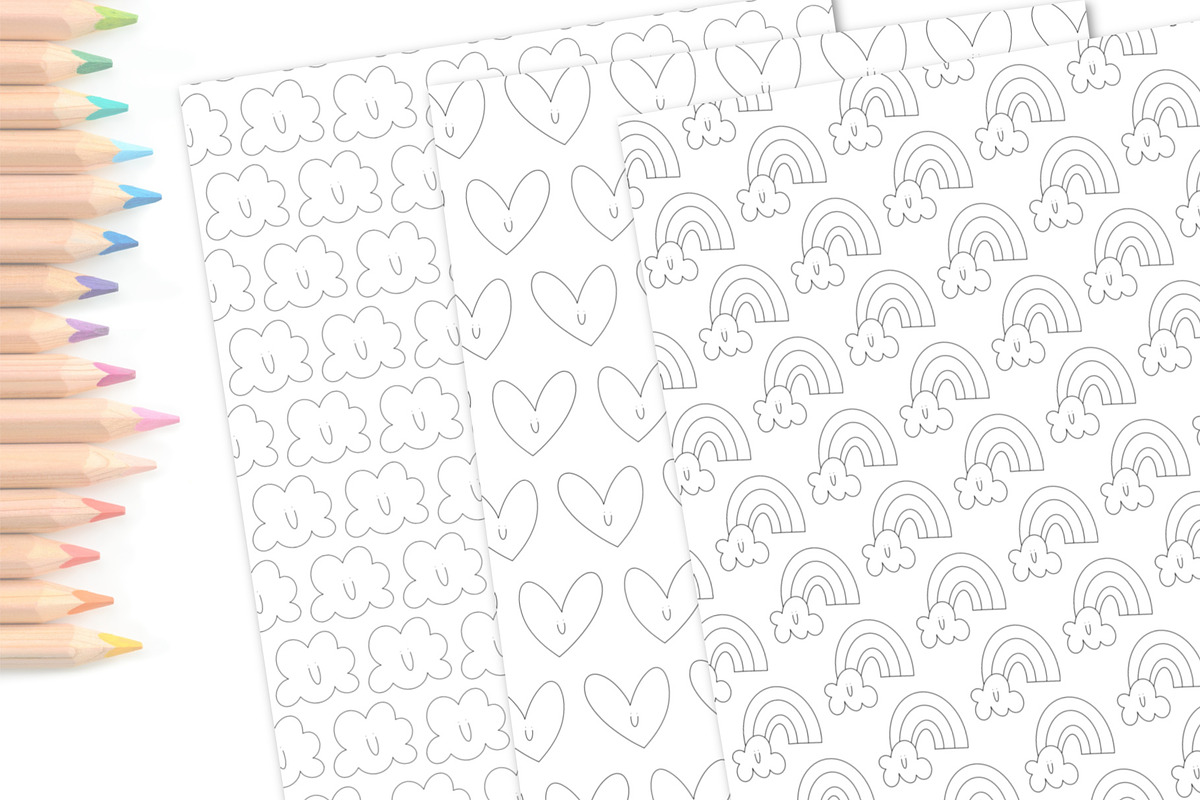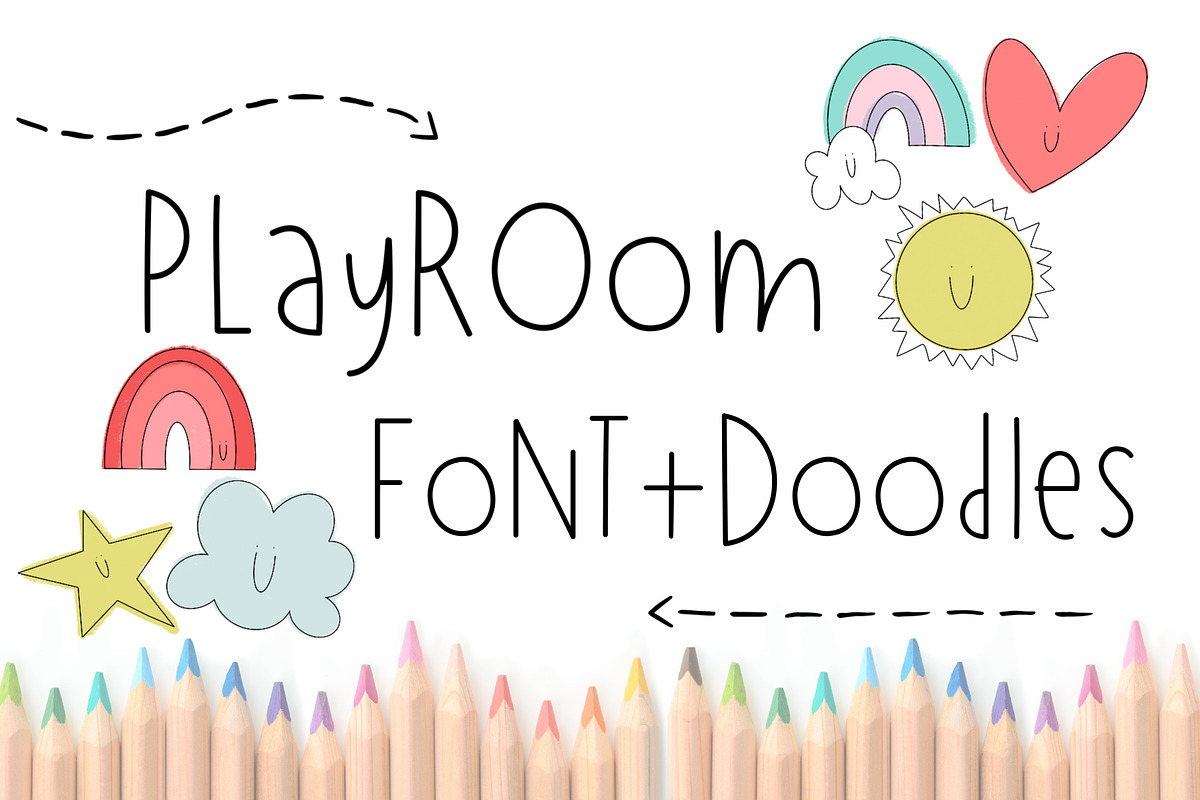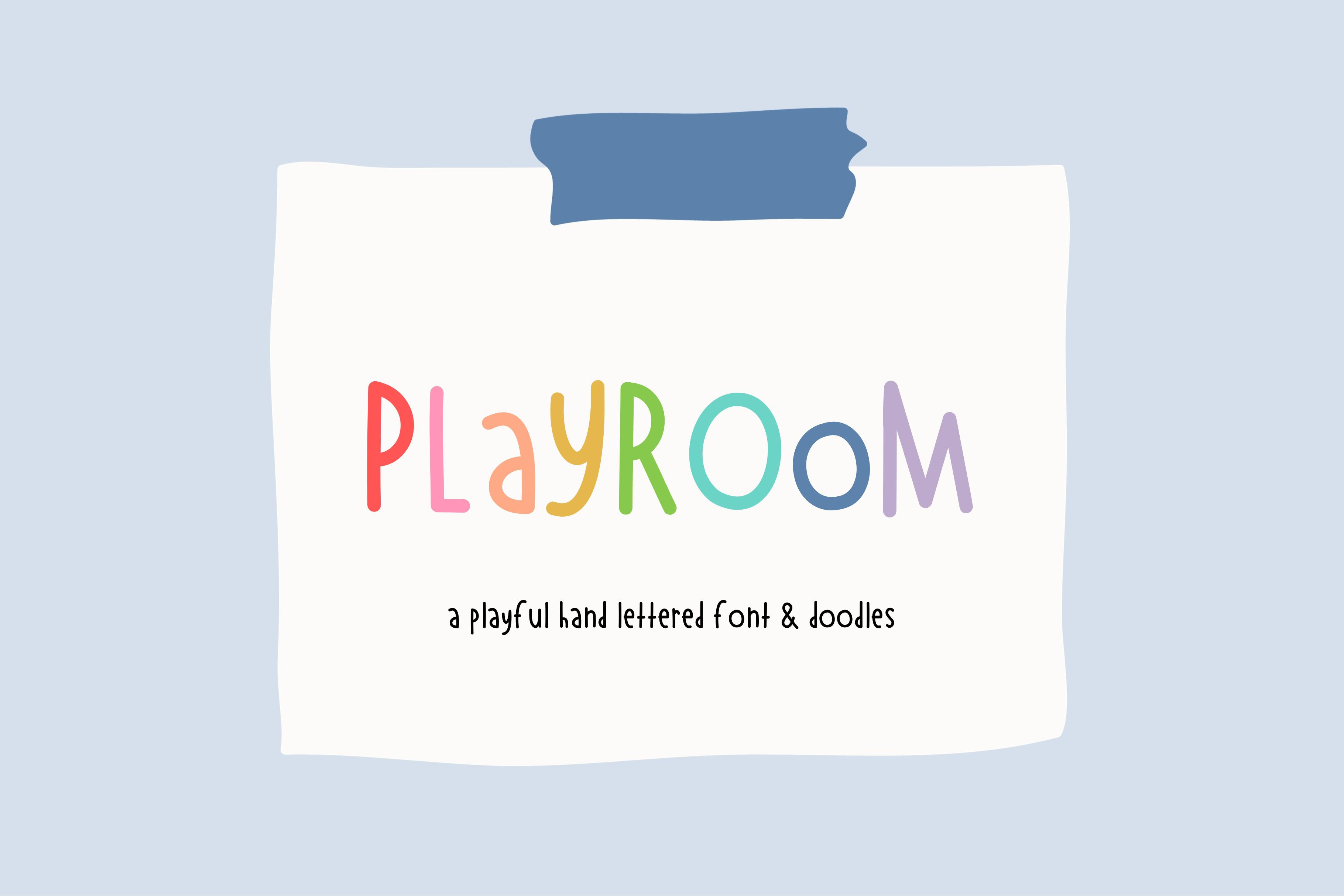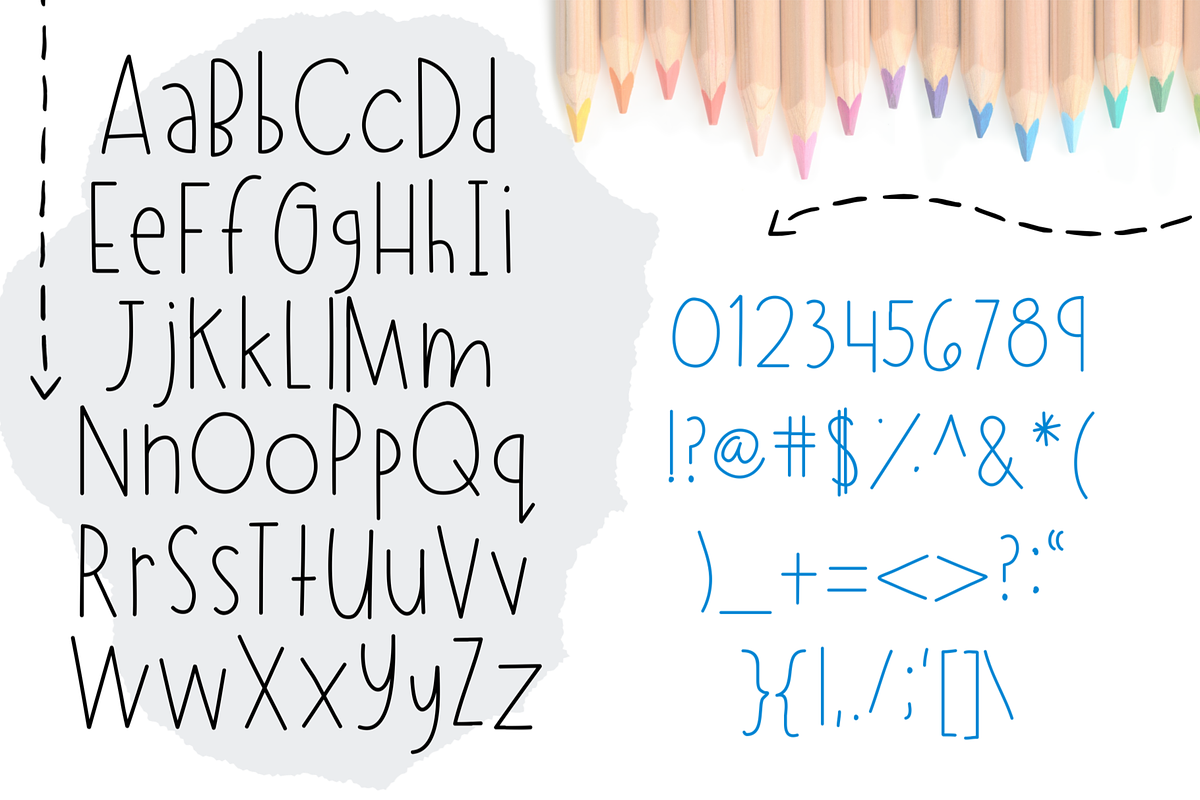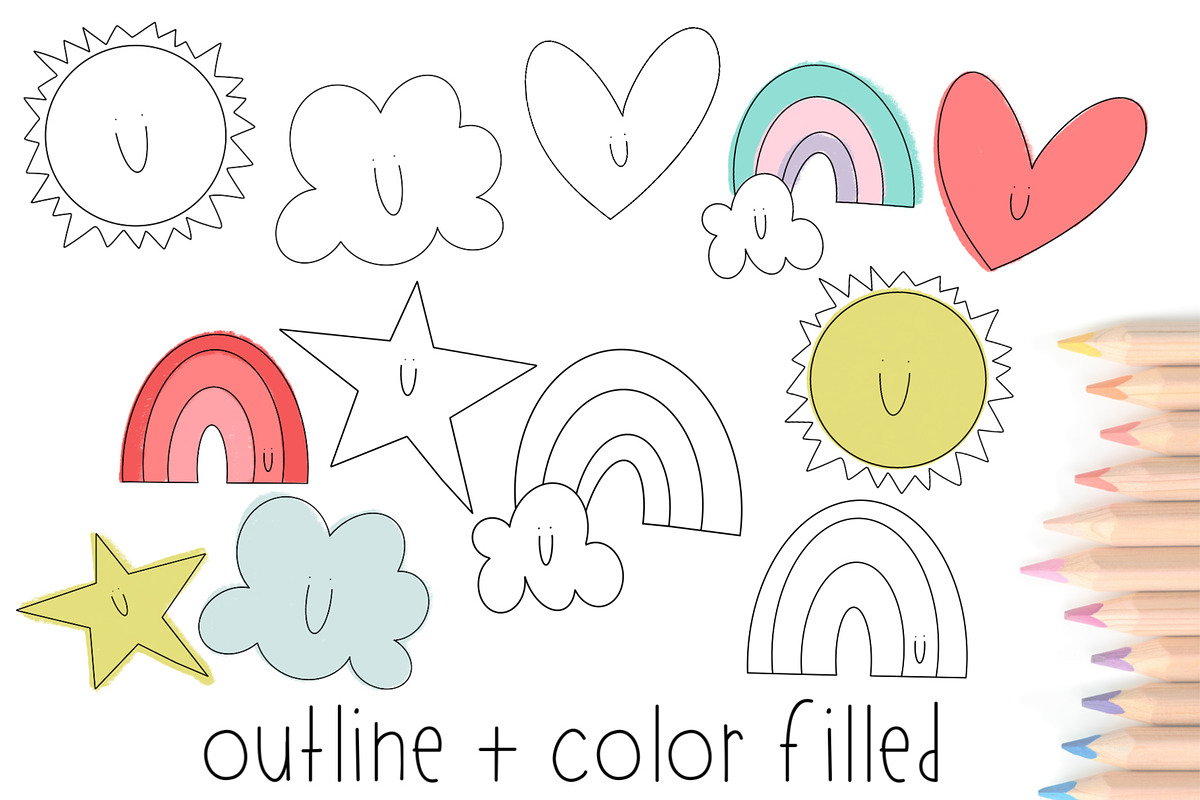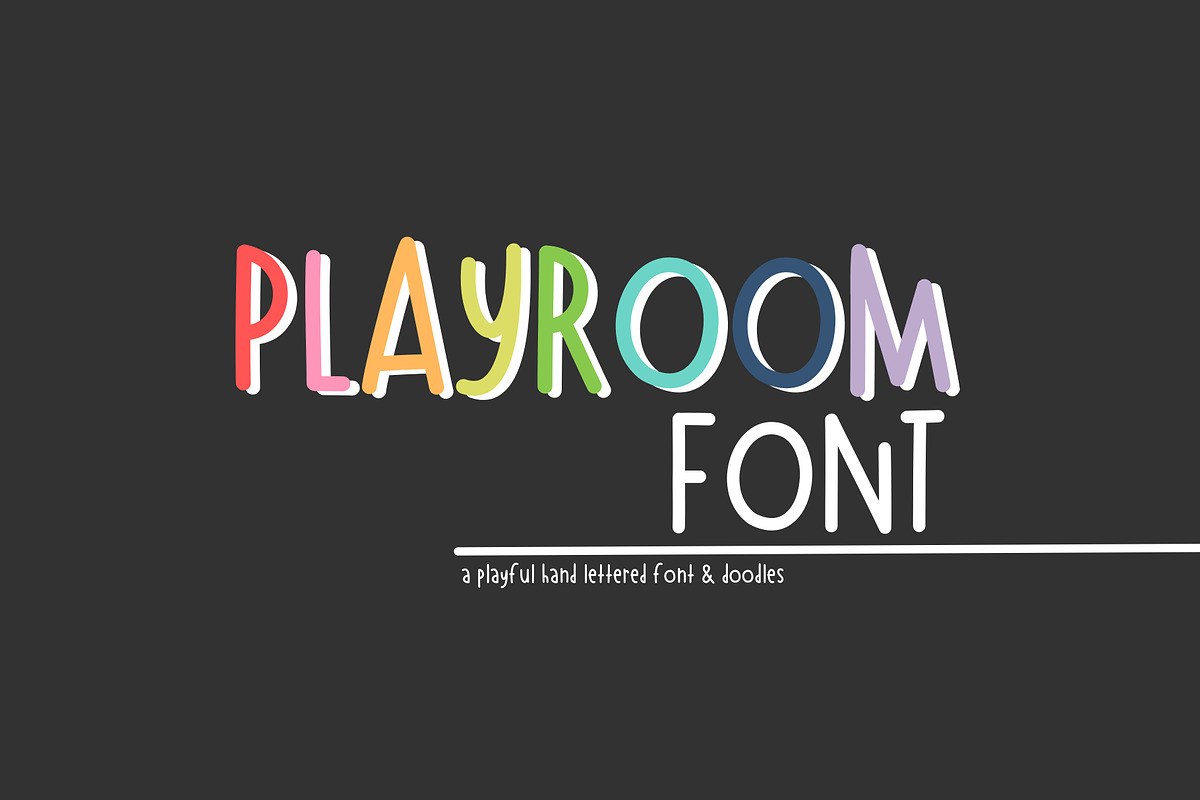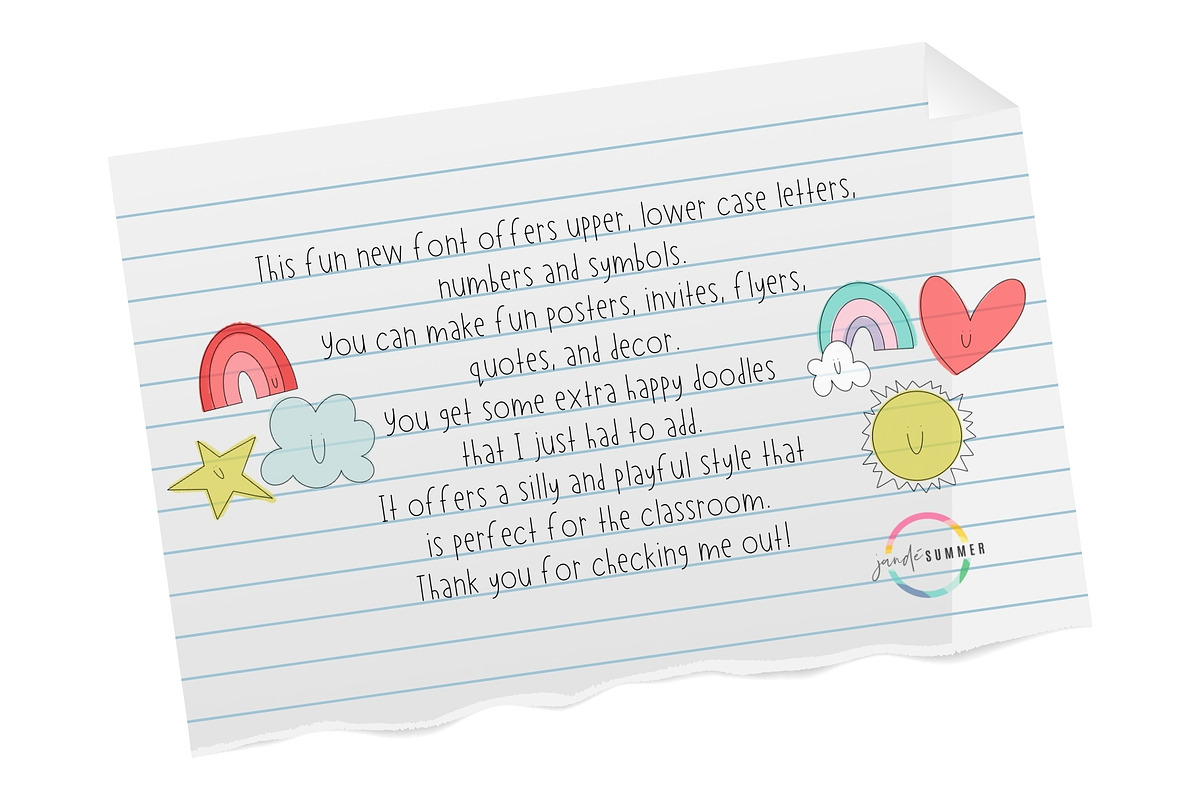
Playroom Font + Doodles
Unique and playful. If a font could be a happy dance, this would be it.
Font Includes Full Alphabet, Upper, and Lower, Numbers, as well as Punctuation.
No fancy software needed to create with these fun doodles!